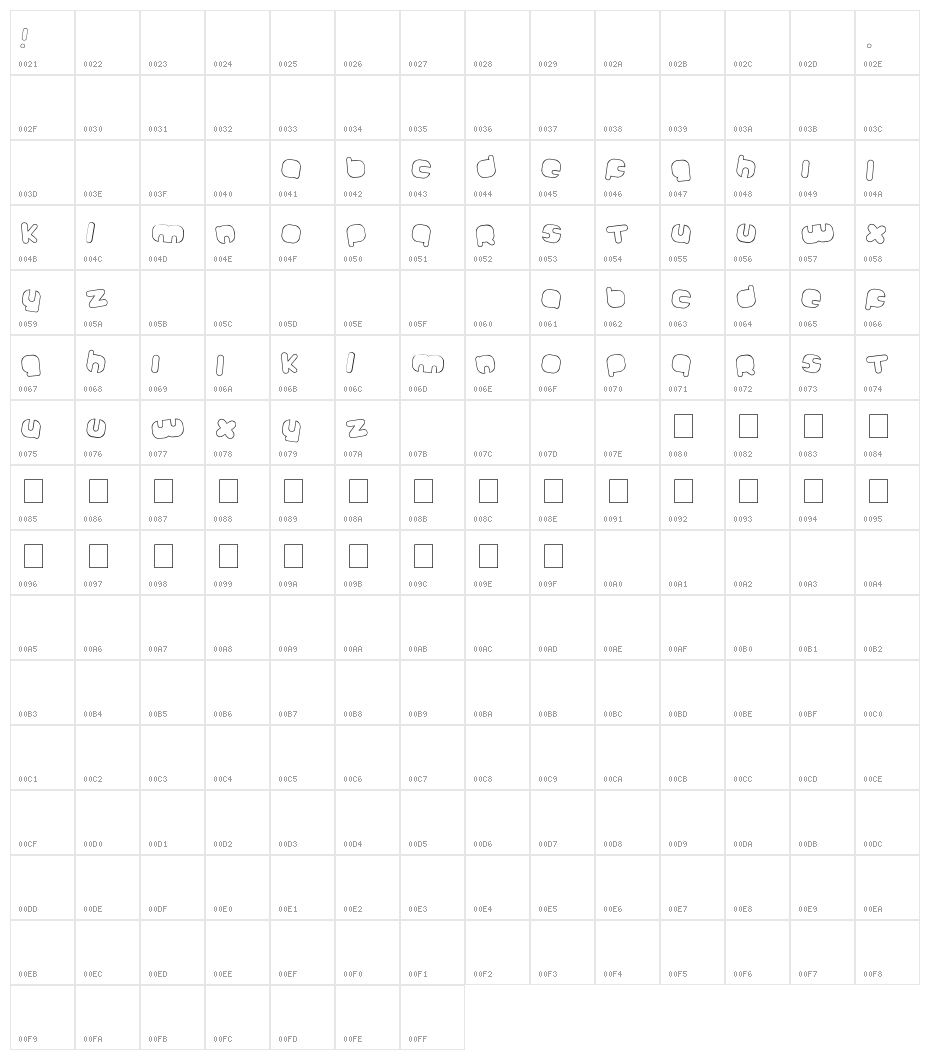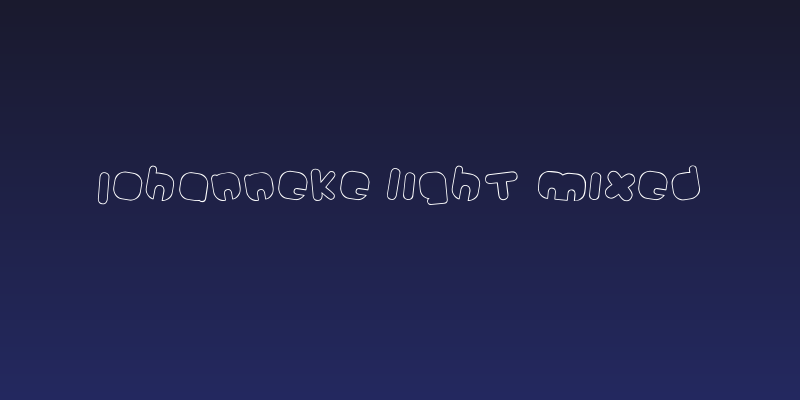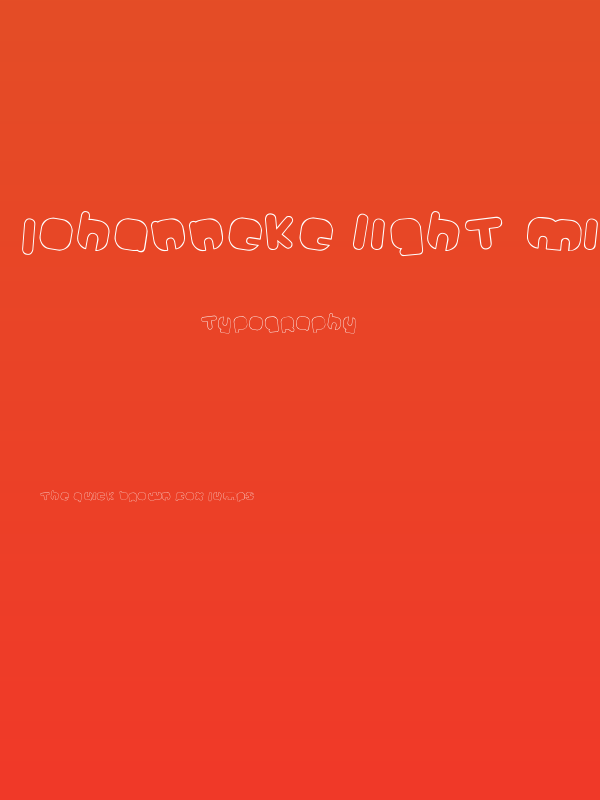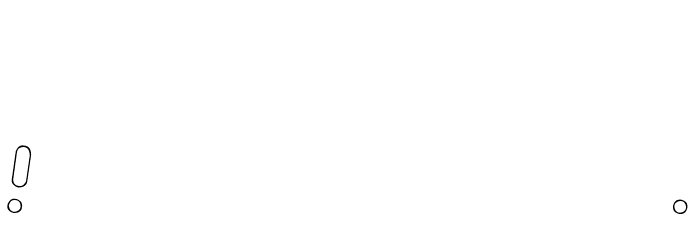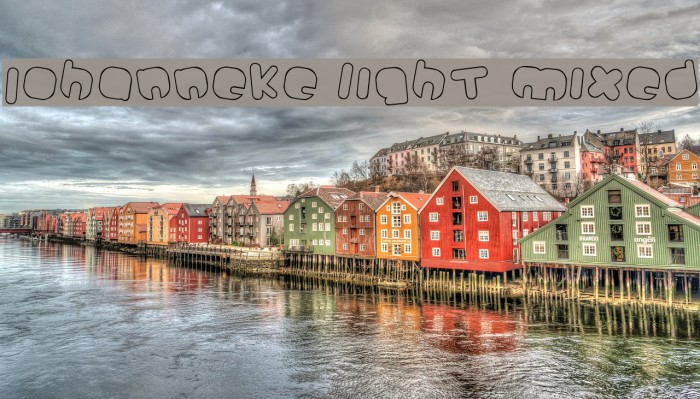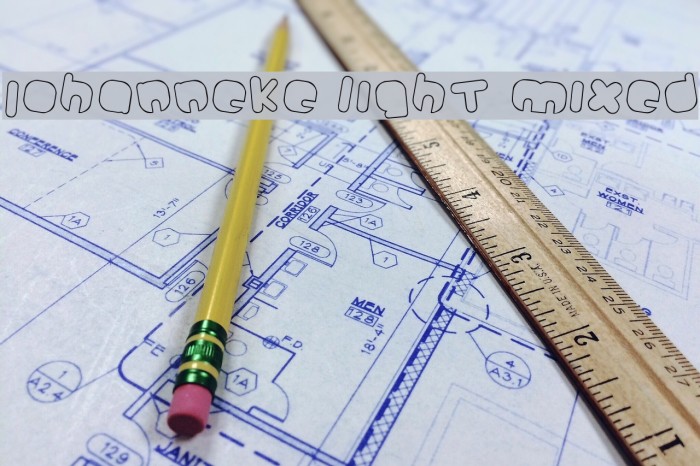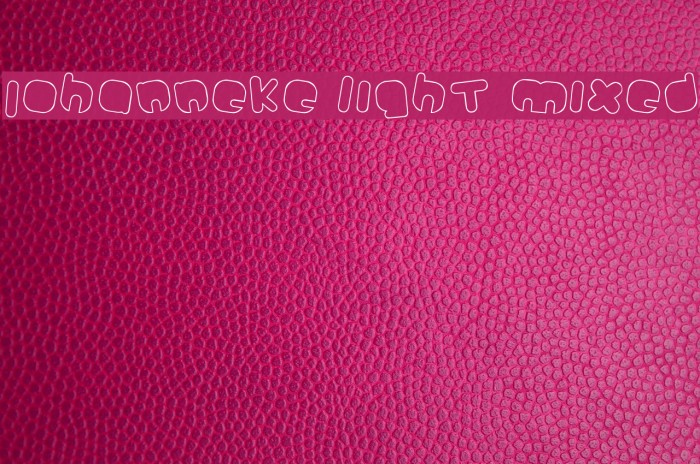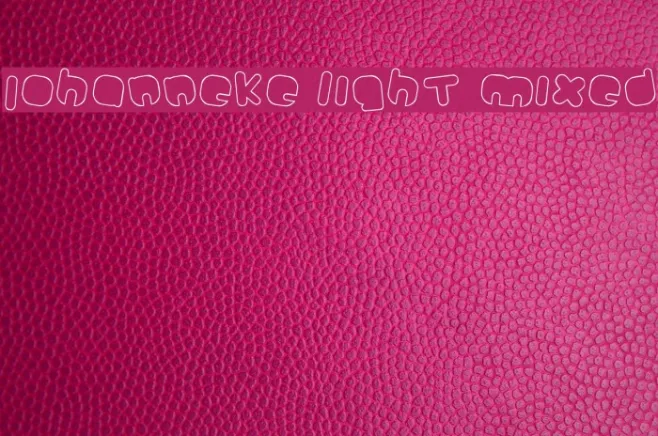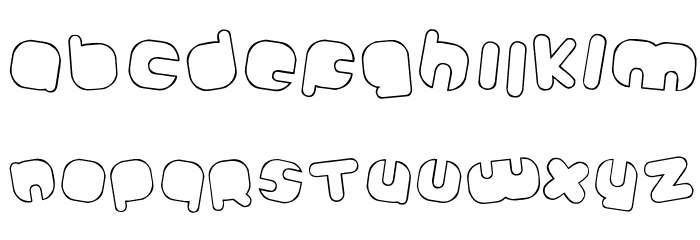
Johanneke Light Mixed Font
Johanneke Light Mixed Description
This playful and whimsical font features a unique, hand-drawn style with rounded, bubble-like characters. Each letter has an organic, uneven outline that gives it a casual and friendly appearance. The font maintains a consistent thickness throughout, with no significant contrast in stroke weight. Its informal and approachable design makes it suitable for creative and fun projects. The characters are well-spaced, allowing for easy readability while maintaining a quirky charm. This font's distinctive style is perfect for adding a touch of personality and creativity to any design.
| Overall Style | Whimsical |
| Use Case | Creative projects, informal designs, children's materials. |
| Proposed Projects | Ideal for children's books, playful branding, greeting cards, and creative posters. |